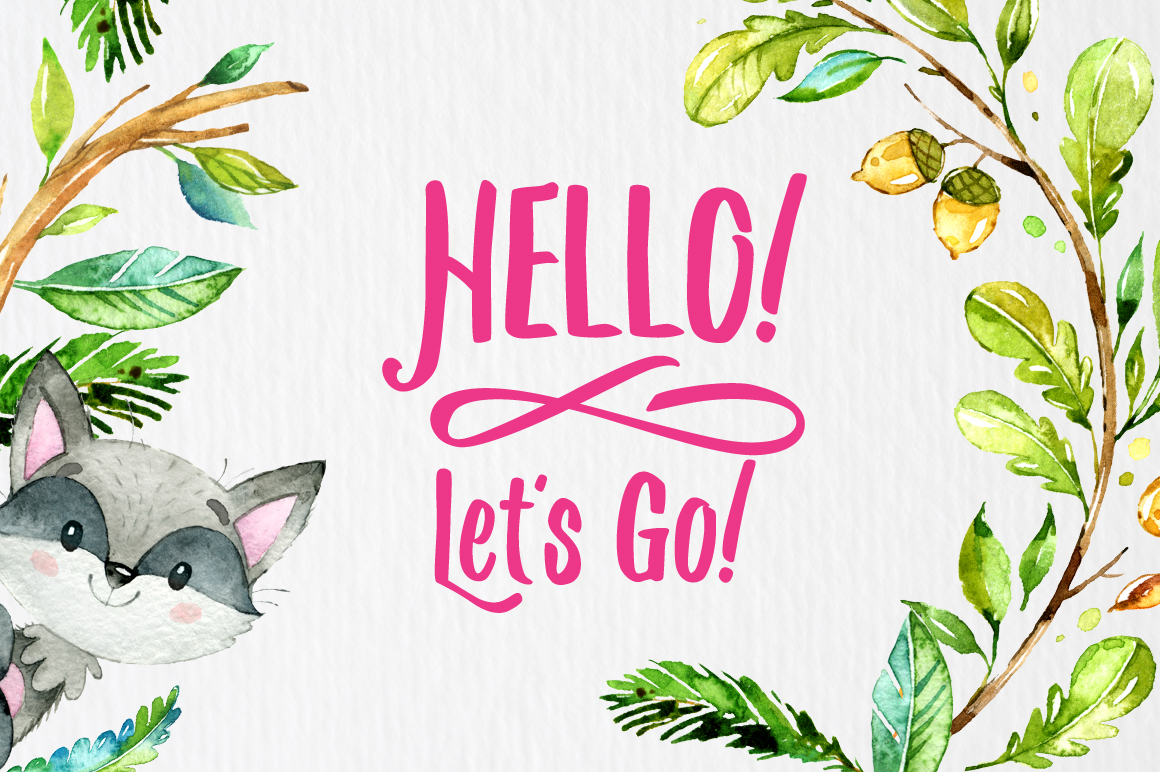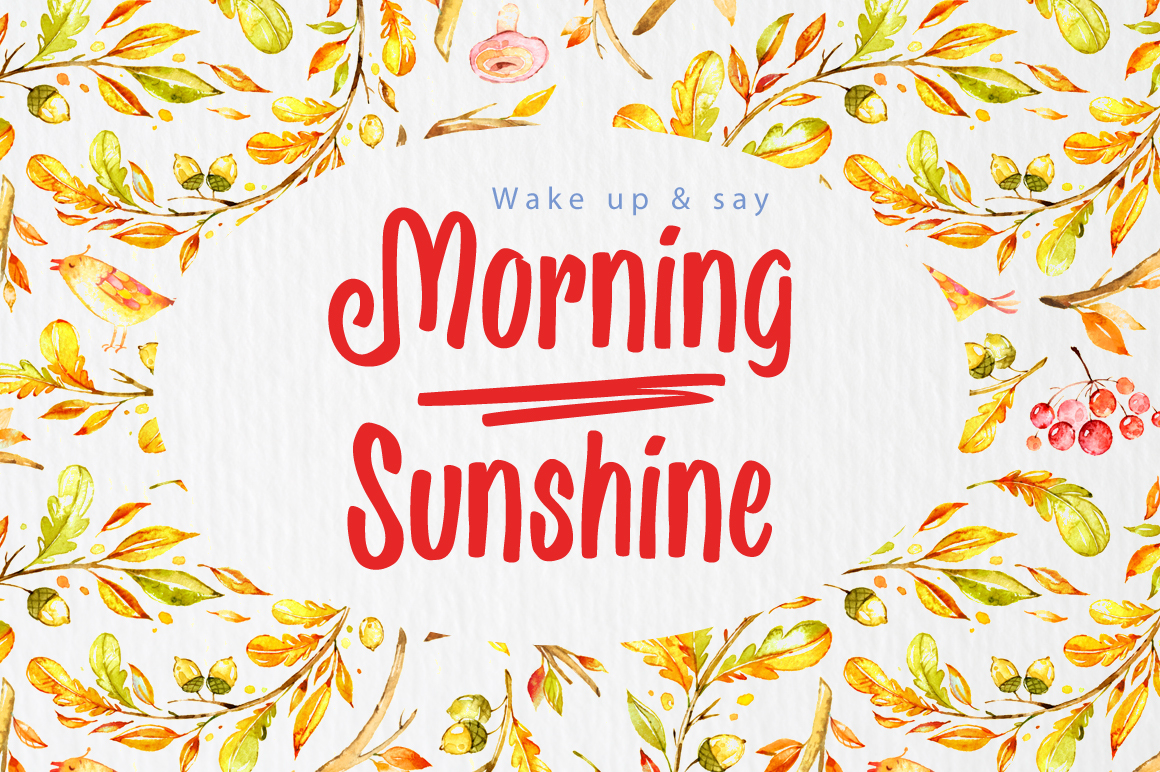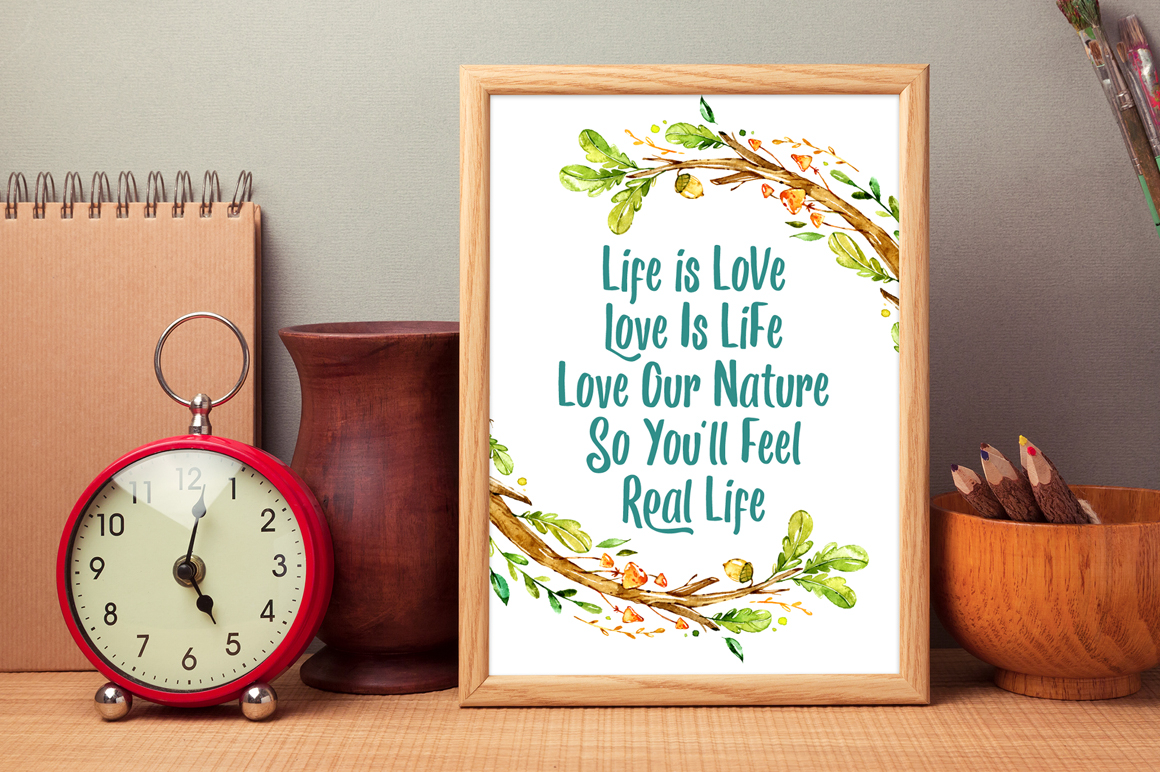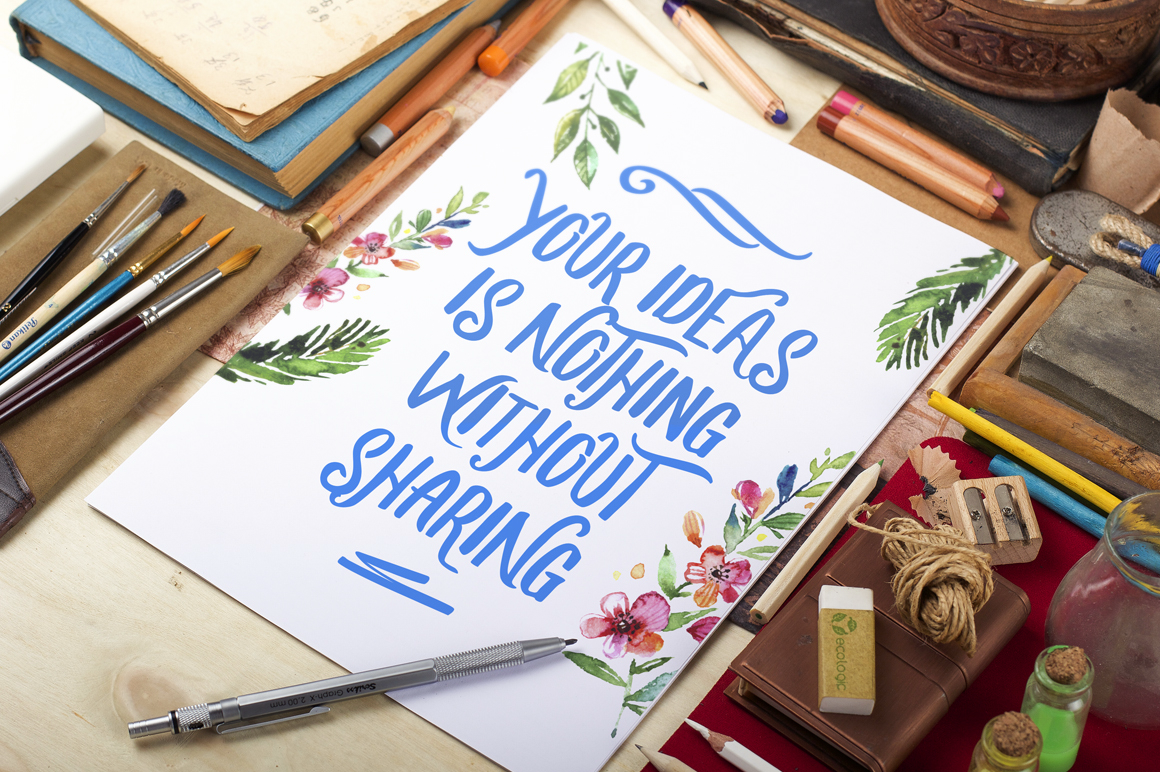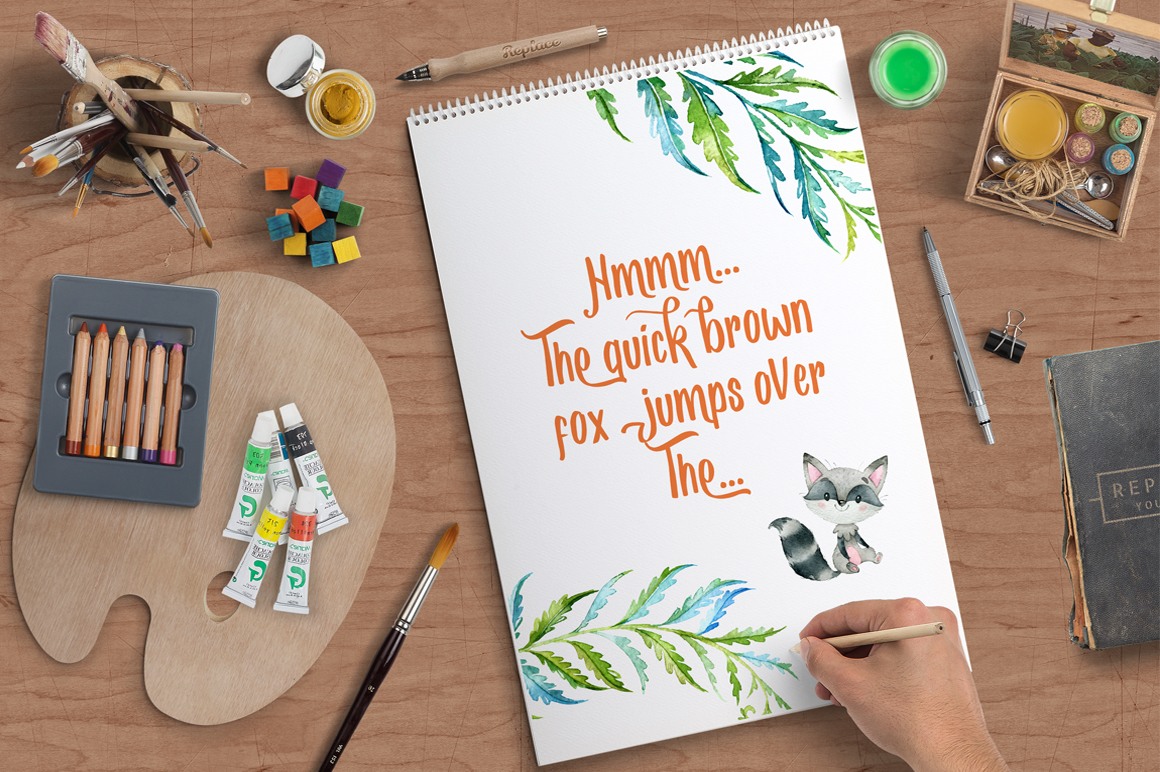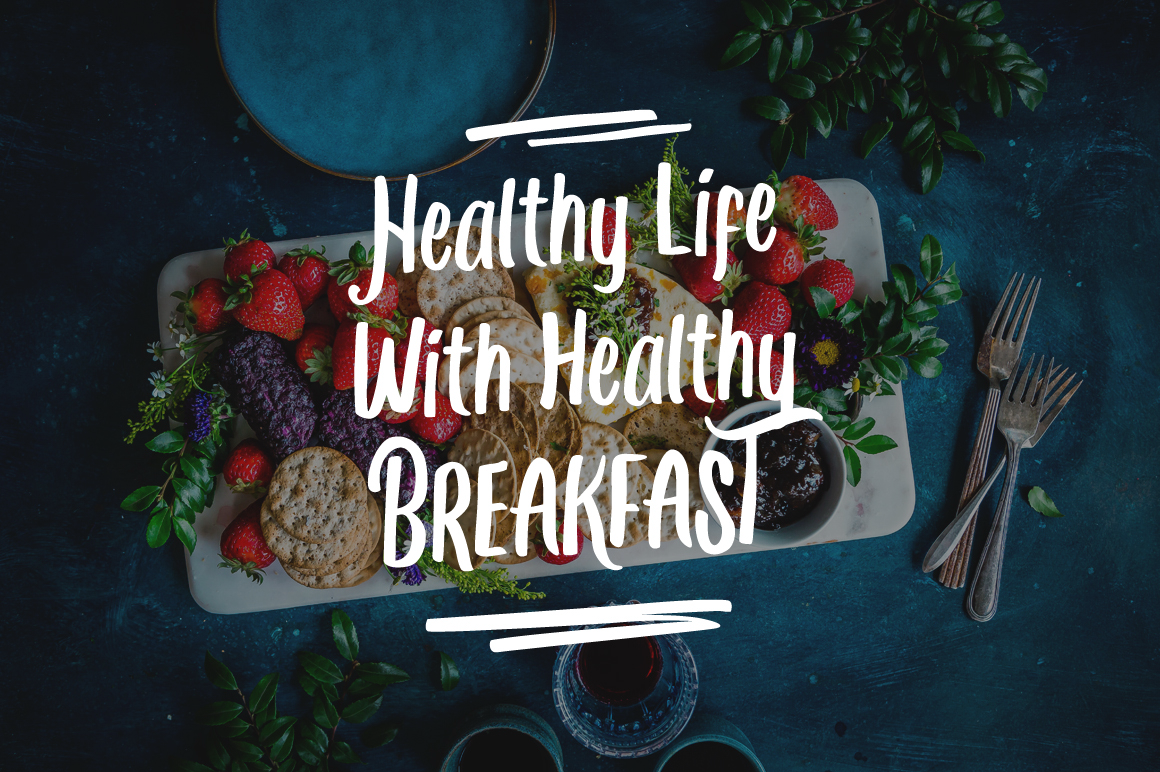
Introduction to Love Quake Font
Love Quake is 100% hand traced, inspired by the arts & crafts movement and watercolor.
The joyful brush lettering with extra swashes is perfect for lighthearted a springy designs .
Key Features of Love Quake Font
Why Choose Love Quake Font?